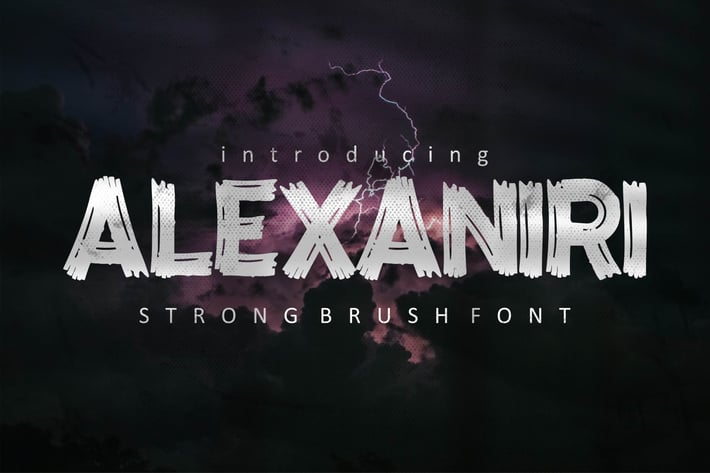
AN Alexaniri - Strong Brush Font
Alexaniri - Handwritten Brush font with a natural Rough style and dramatic movement. Crafted manually with love and passion, This font is great for your next creative project such as logos, printed quotes, invitations, cards, product packaging, headers, Logotype, Letterhead, Poster, Label, and etc.